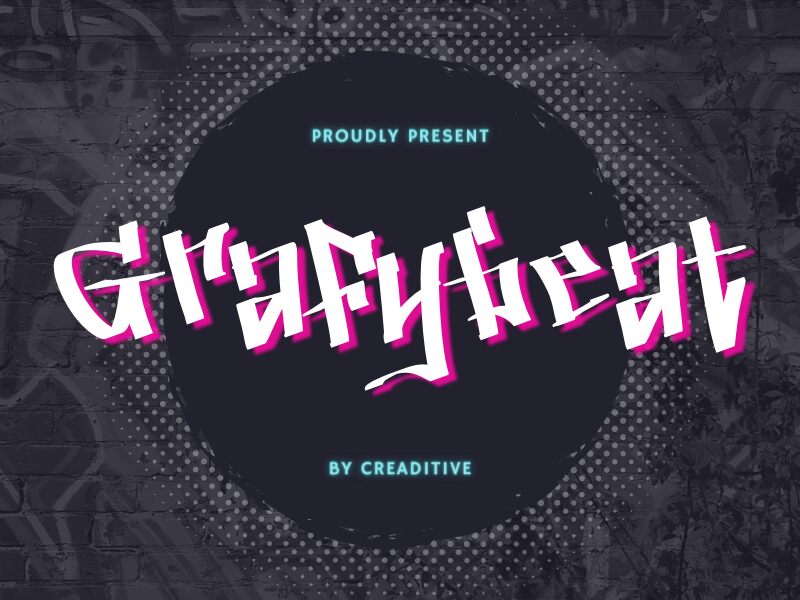
Grafybeat
Grafybeat font by Creaditive Design is a graffiti-inspired font with angular forms and an edgy, rebellious vibe. Its urban contemporary street style is apparent in all its elements. Equipped with uppercase letters, numbers, and symbols, the font promises a complete project where combined simple character come to life! Free spirit drips from every slanted or curved letter which makes this daring type style of great concern.
With no constraints or rules to follow it’s up for Grafybeat users to decide how the font will be used. With plenty of choices available one can apply its style in logo design, packaging projects, wall art murals, posters, videogame designs and covers. It additionally works well for magazine covers (printed or digital), modern t-shirts and apparel design. Social media images for Facebook or Instagram accounts are elevated as well!